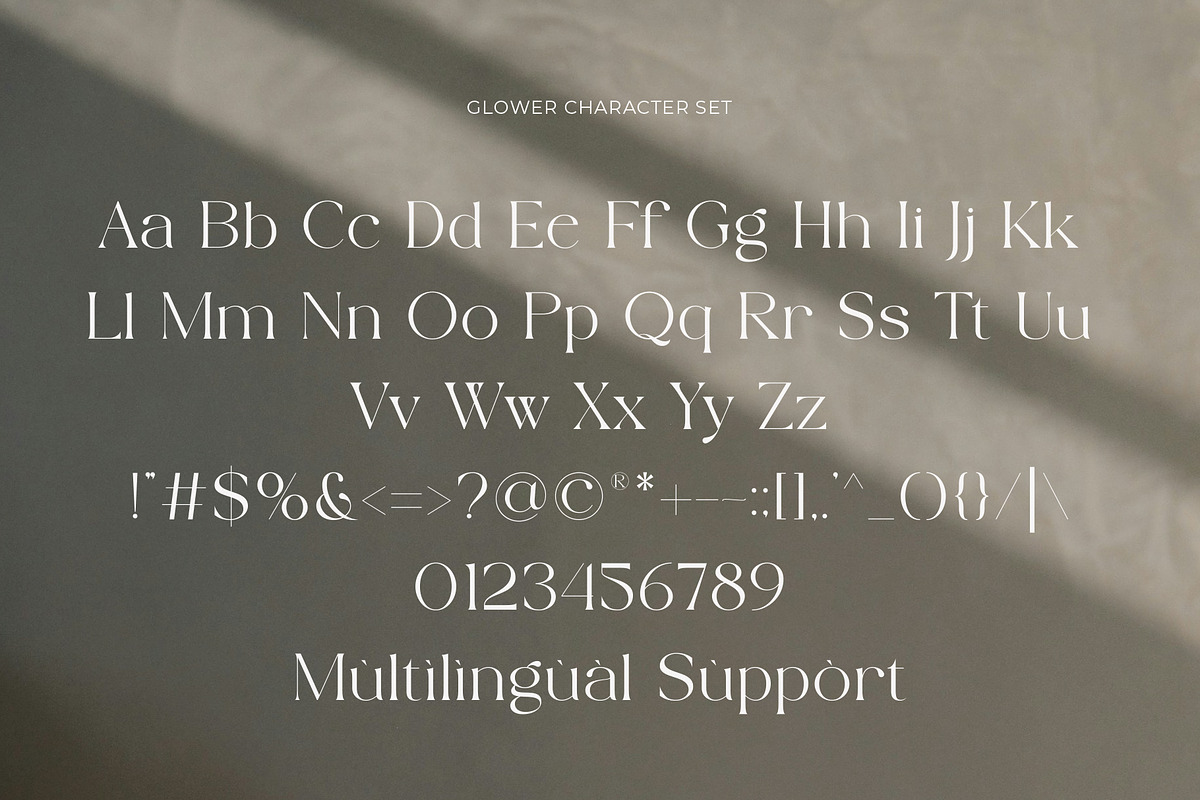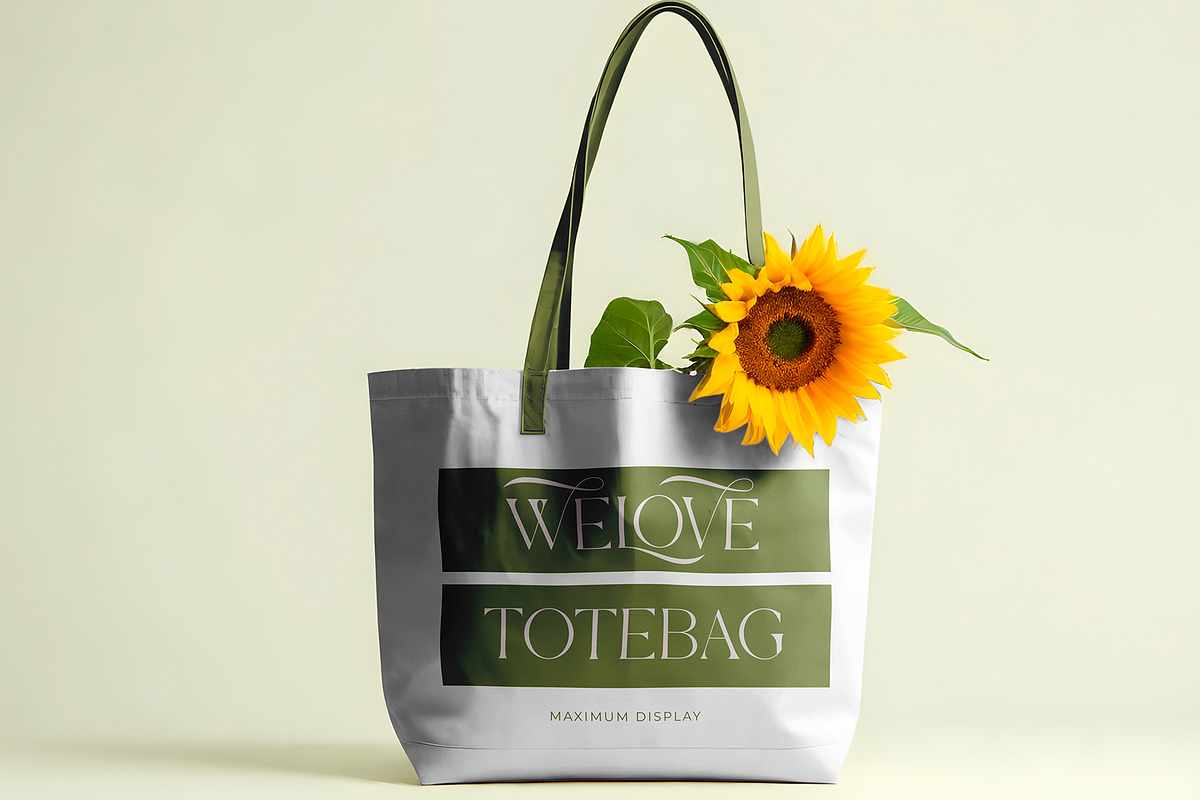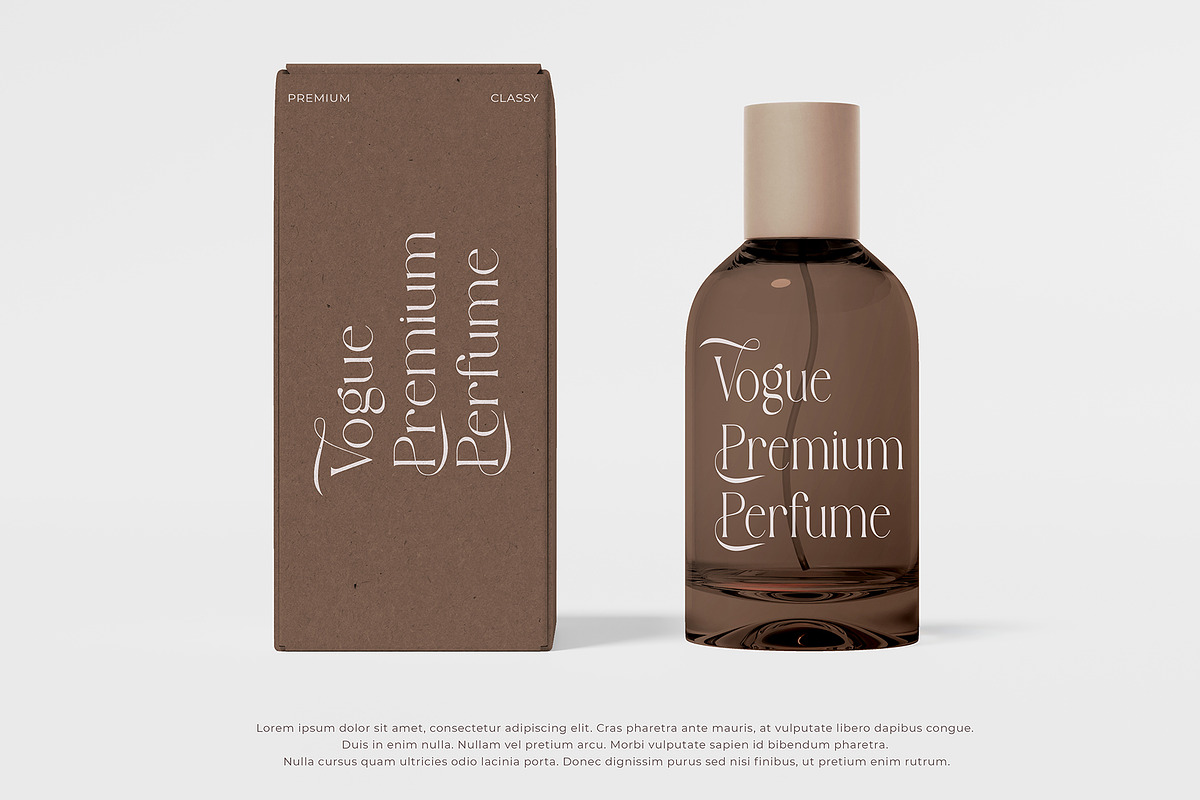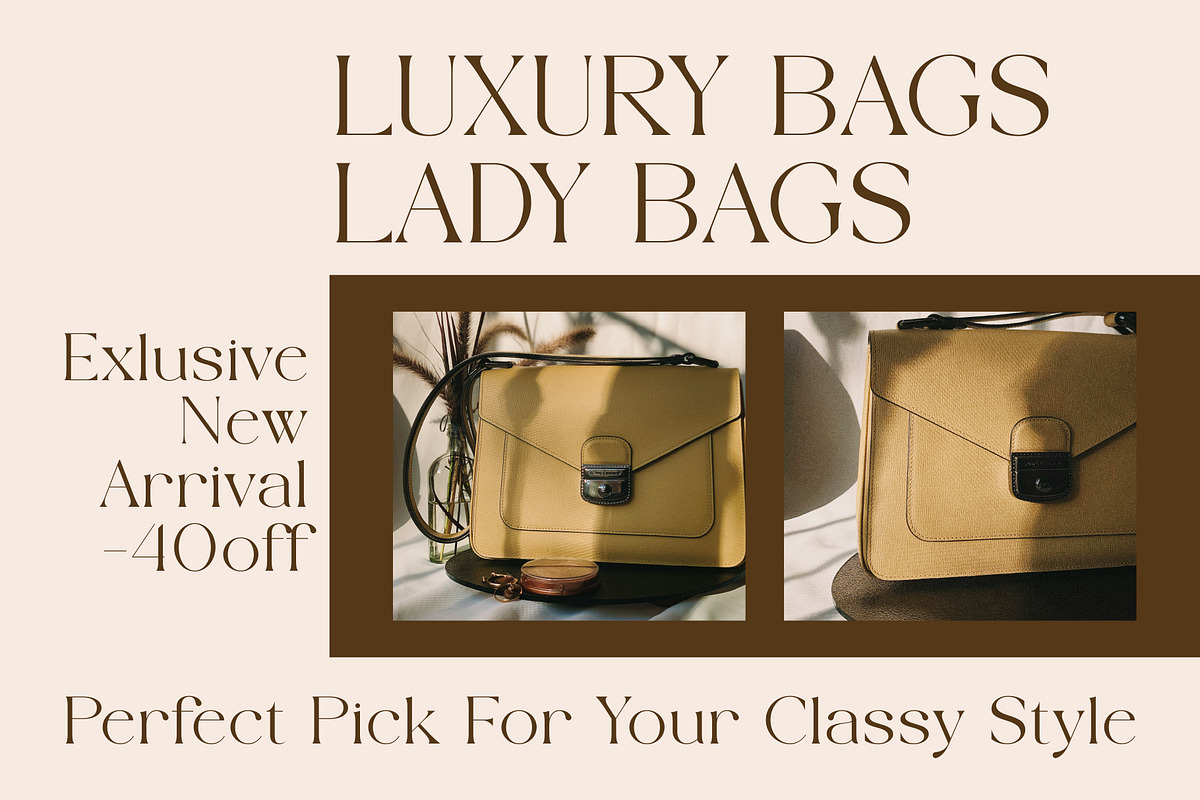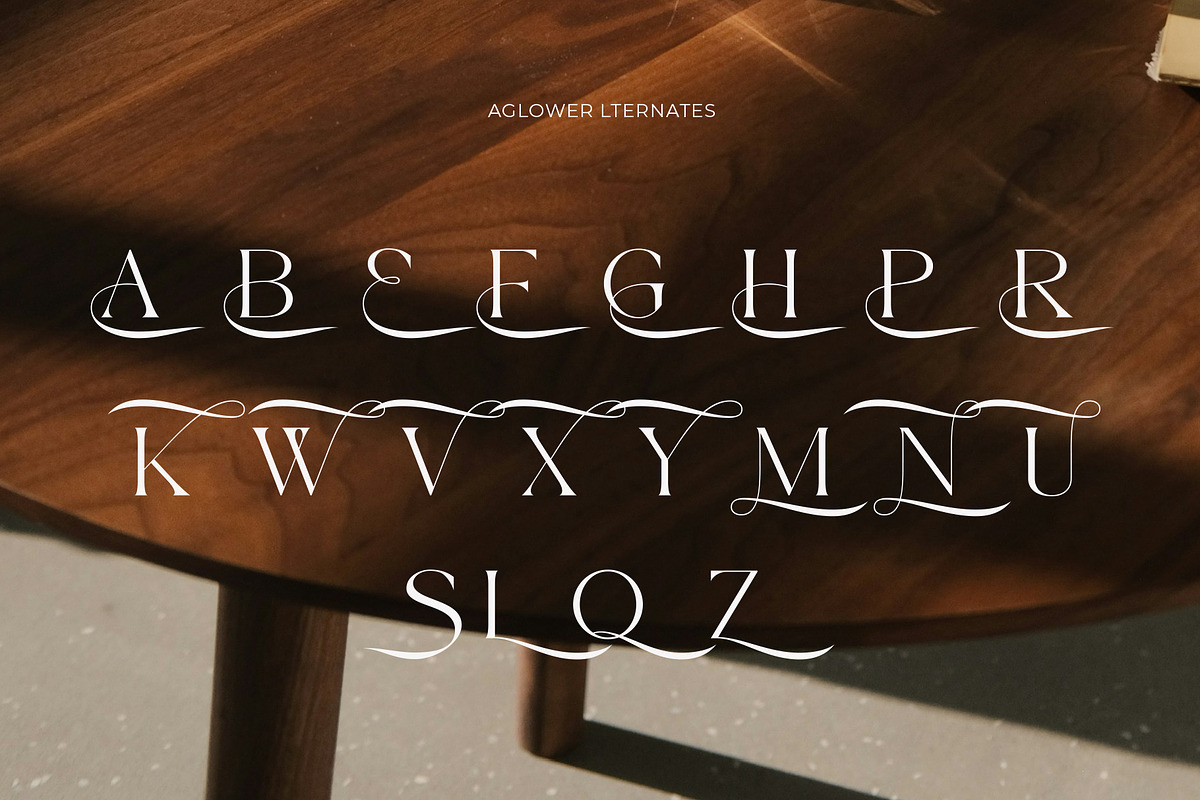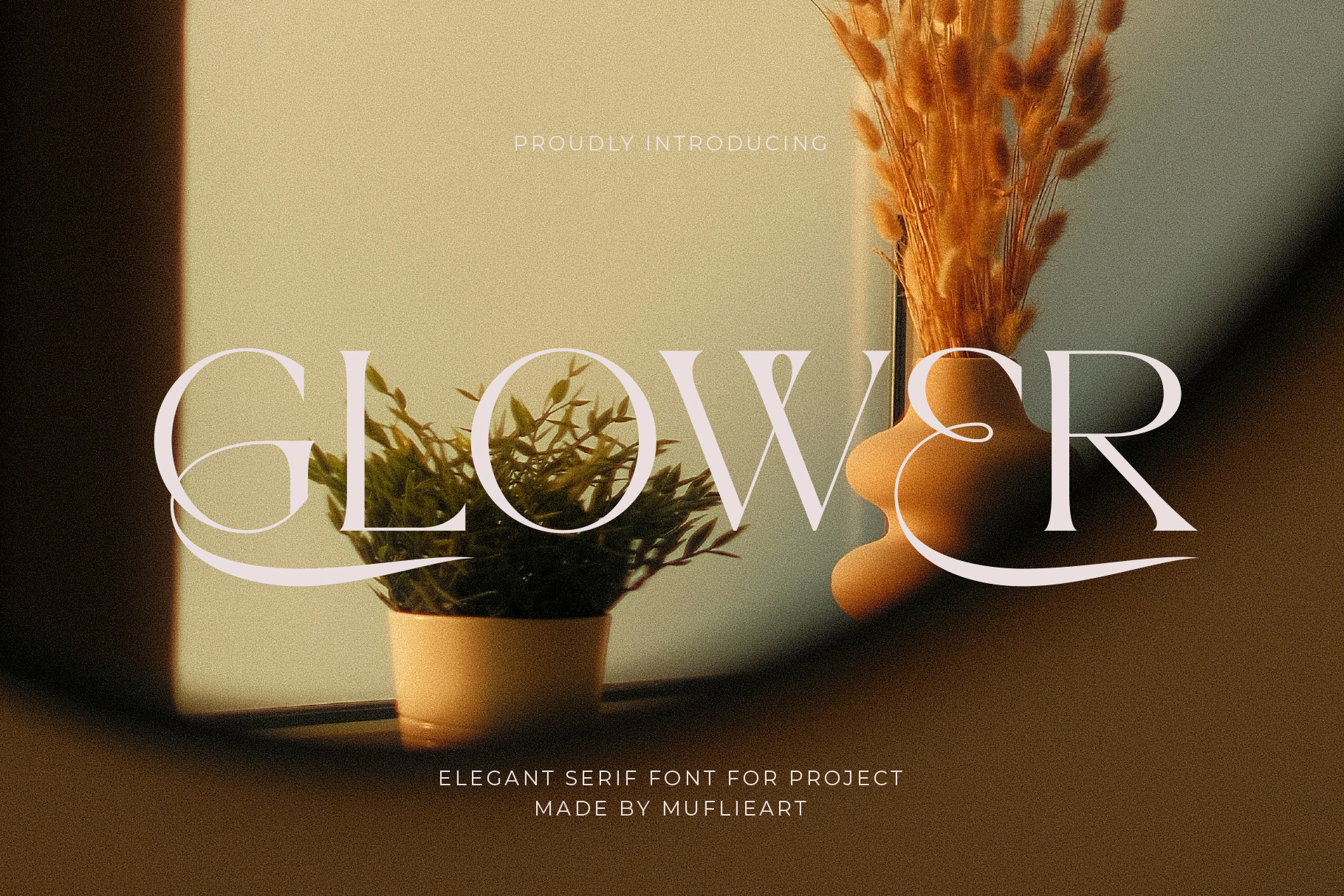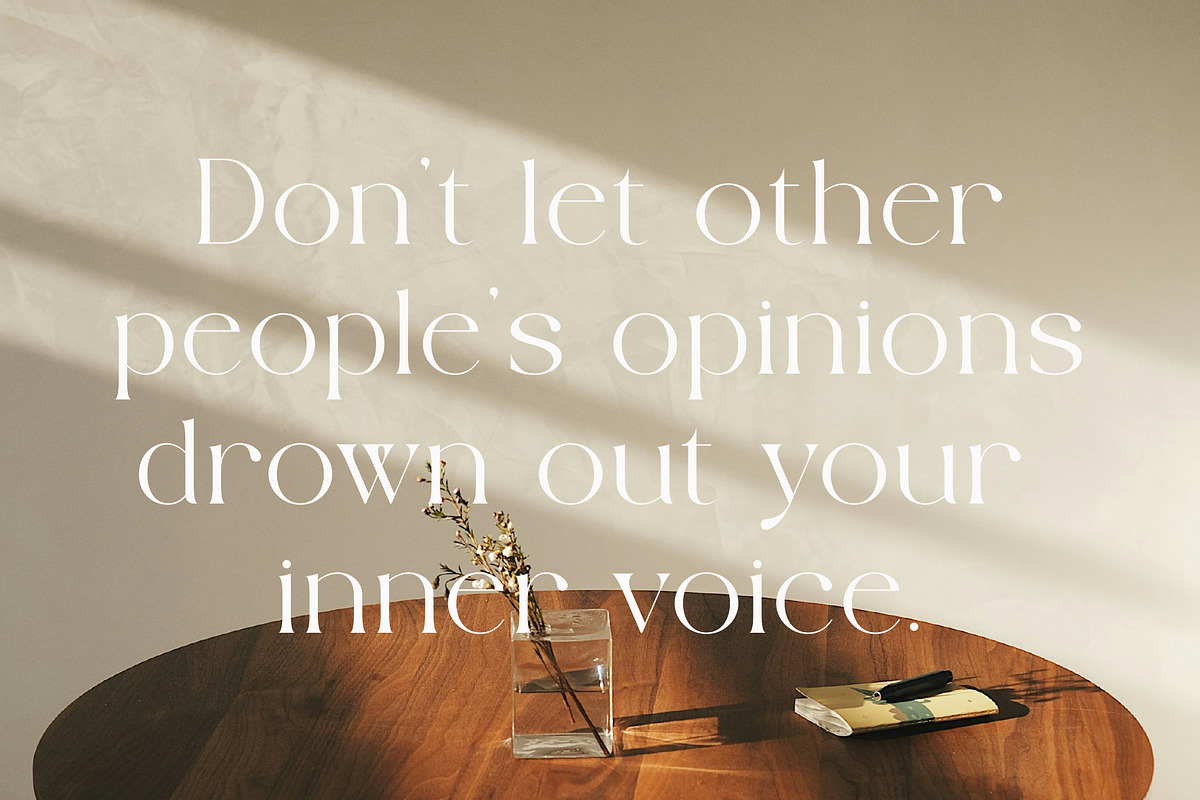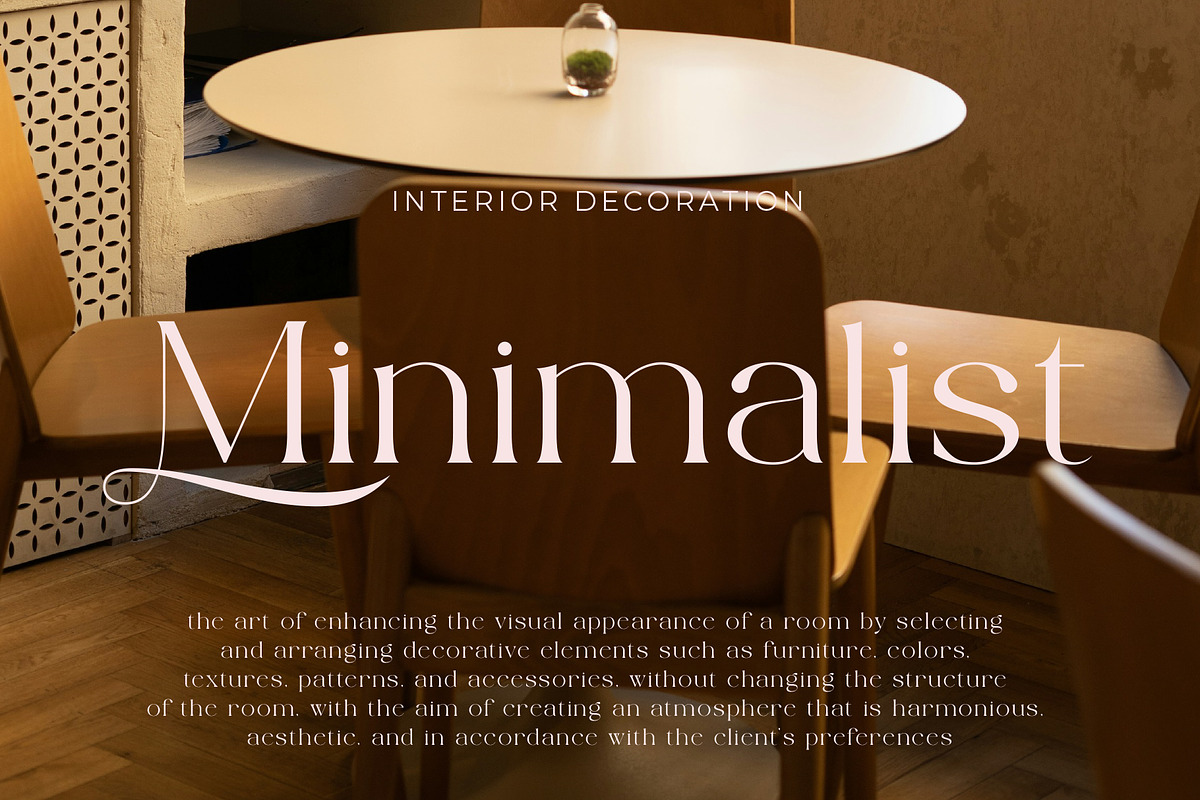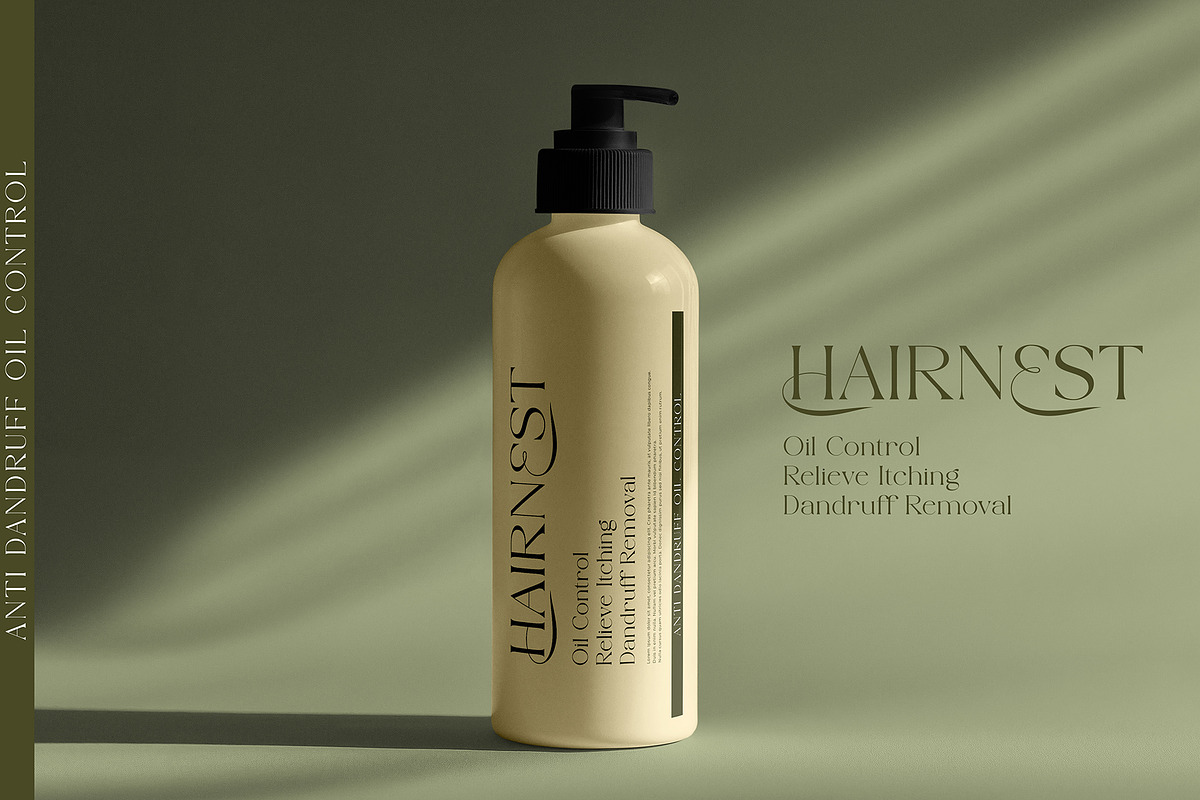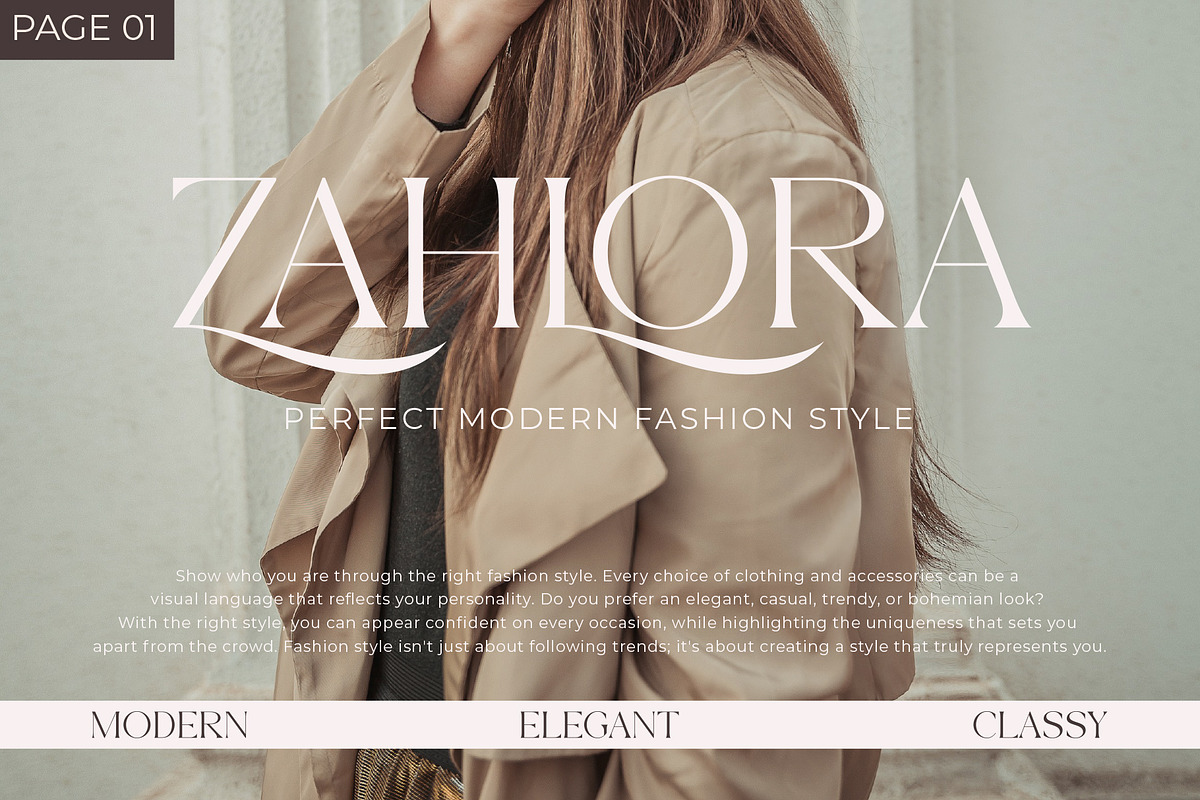
Glower - Elegant Serif Font
Glower – Elegant Serif Font is a modern typeface with a touch of classic elegance. Its clean yet elegant letter design makes Glower the perfect choice for premium design needs such as logos, branding, wedding invitations, and even fashion editorials.
Crafted with subtle typographic details, Glower conveys a luxurious, professional, and timeless feel, perfect for designers looking to add an exclusive touch to their projects.
- Full uppercase and lowercase letters
- Numerals and punctuation
- Ligatures and stylistic alternates
Suitable for:
- Logos and business branding
- Wedding invitations and stationery
- Social media design and quotes
- Editorial and magazine layouts
- Product packaging and labels